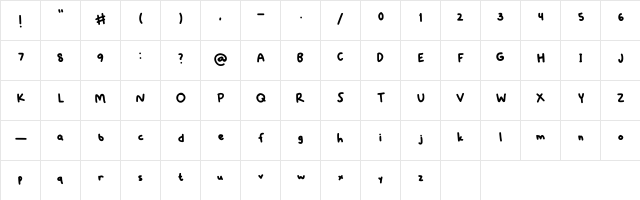
Littlejoodles Regular
Design Context for Littlejoodles Typeface
Littlejoodles is a composed and adaptable typeface that performs quietly and consistently across a wide range of design contexts.